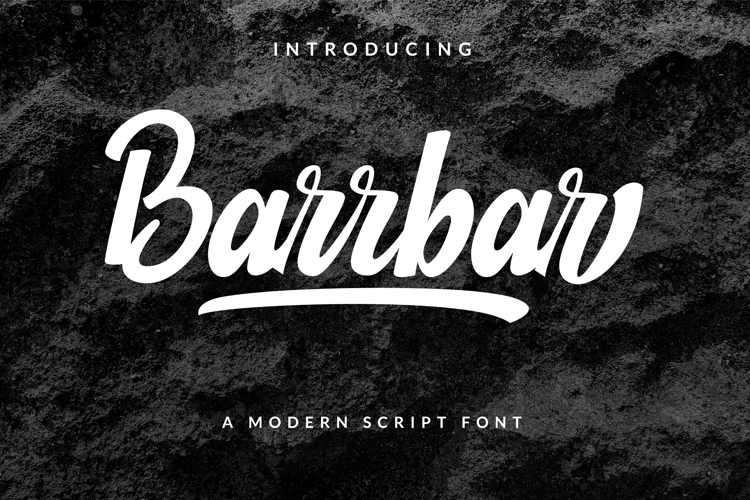
Barrbar Font
About Barrbar Font
Barrbar is a hand-brush script font. This font is great for your next creative project such as Logotype, printed quotes, invitations, cards, product packaging, headers, Letterhead, Poster, Apparel Design, Label, and etc.
-Opentype Features (Ligature, Swash, Stylistic Set)
-Multilingual Support